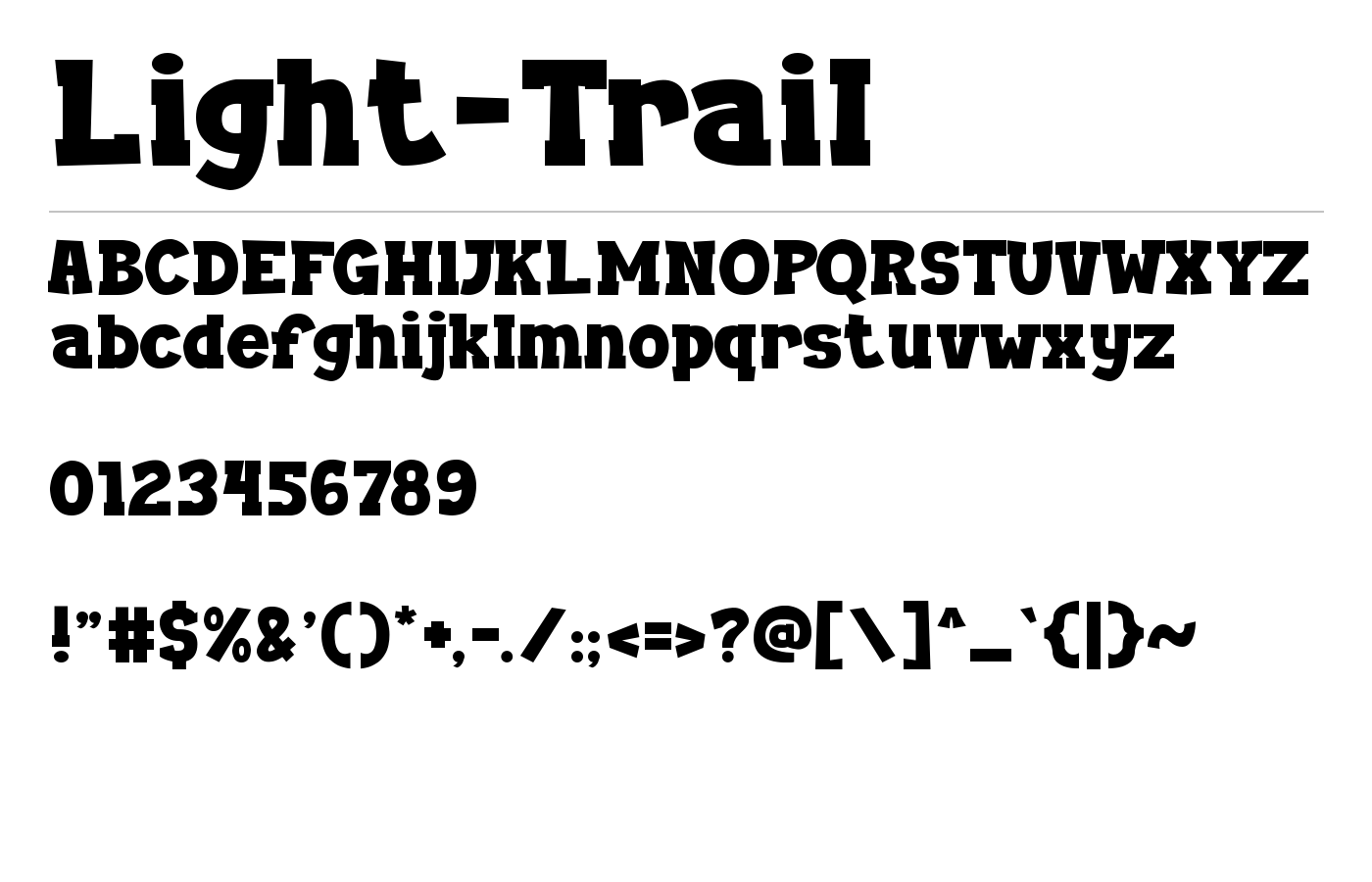
Light Trail is a bold, slab serif font with a playful and slightly irregular design that features thick, blocky serifs and moderate stroke contrast. Its wide letterforms with quirky, uneven shapes create a fun, informal tone, making it perfect for headlines, posters, and branding that wants to stand out with a friendly yet strong personality. This font works well where a bold, eye-catching style is needed without sacrificing readability.
Light Trail Font
About Light Trail Font